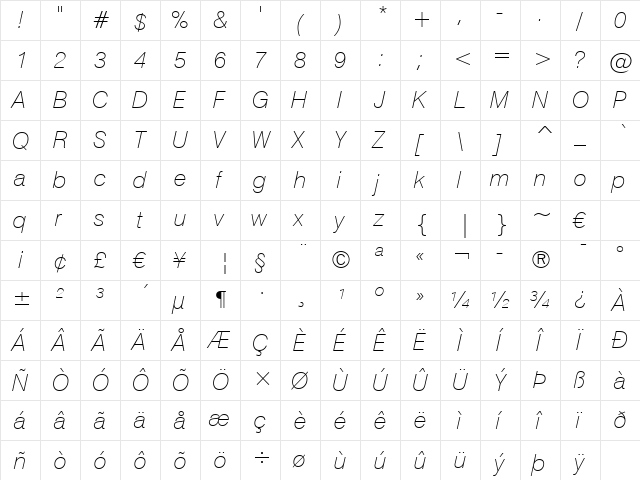
Swis721 Th BT Thin Italic Font Preview
Design Context for Swis721 Th BT Typeface
Swis721 Th BT takes a measured approach to typography — its balanced proportions and neutral character make it a reliable workhorse for both digital and print work. The slanted form adds forward momentum and visual energy. The delicate stroke weight brings airiness and refinement to layouts.
Pro Tip: Try Swis721 Th BT for annotation and caption copy alongside an upright companion — the contrast in angle creates a dynamic but ordered typographic system.